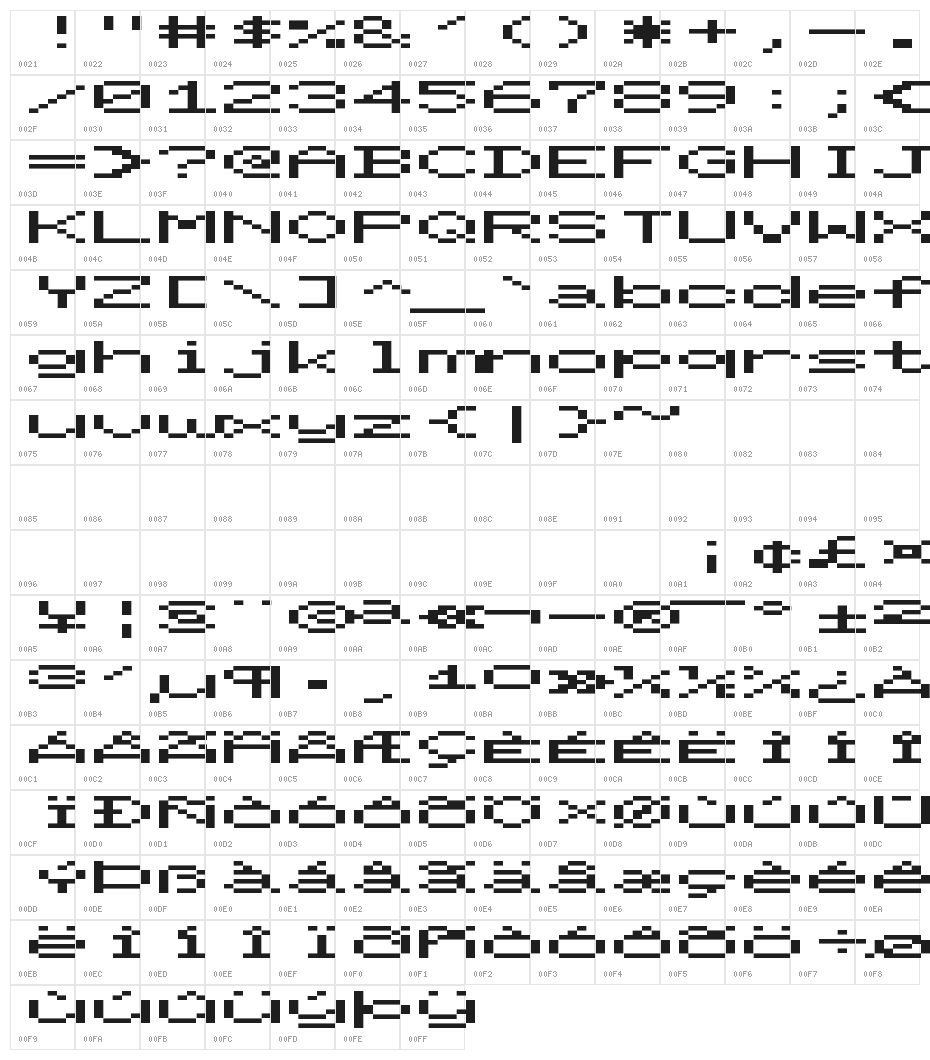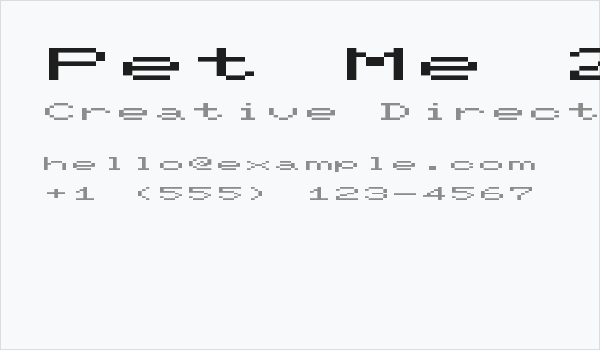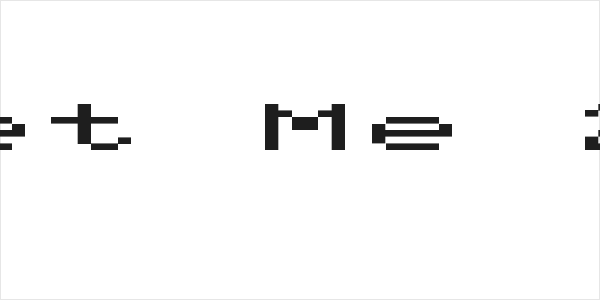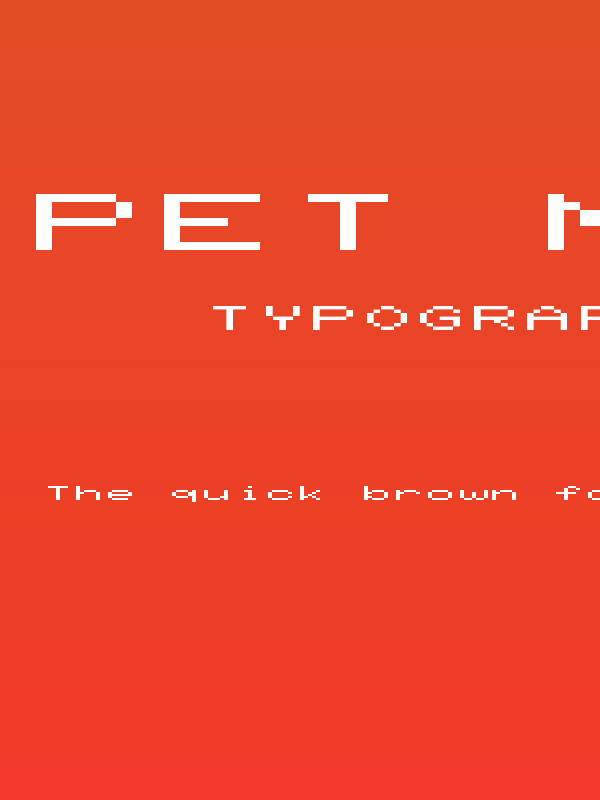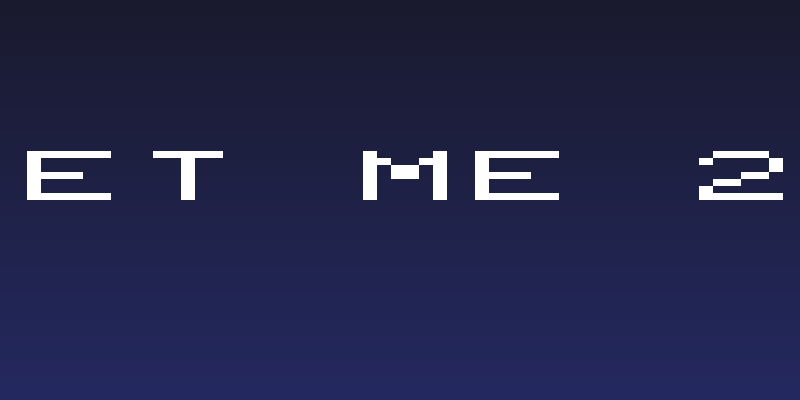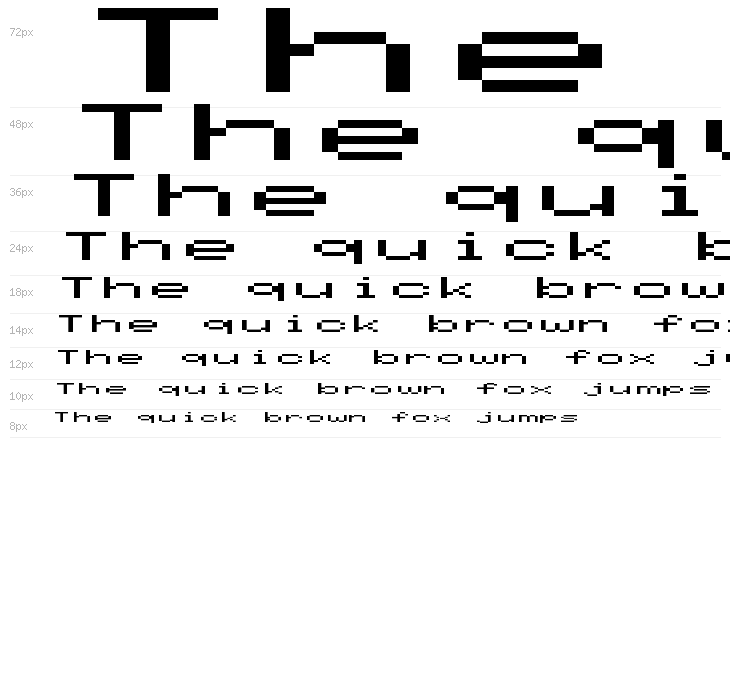
Pet Me 2X Font
Pet Me 2X Description
This font features a pixelated, blocky design reminiscent of early digital displays and retro video games. Each character is constructed with a grid-like structure, giving it a distinctly digital and geometric appearance. The uppercase and lowercase letters maintain a consistent height, contributing to a uniform look. The numerals and special characters follow the same pixelated style, ensuring visual coherence across all elements. This font's nostalgic aesthetic is ideal for projects that aim to evoke a sense of vintage technology or retro gaming culture.
| Overall Style | Retro, Digital |
| Use Case | Logos, Headlines, Digital Art |
| Proposed Projects | Ideal for retro video game designs, digital art projects, tech-themed posters, and nostalgic branding. |